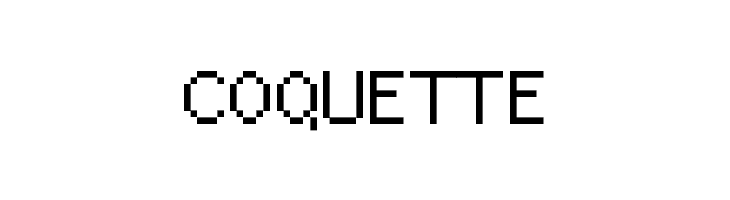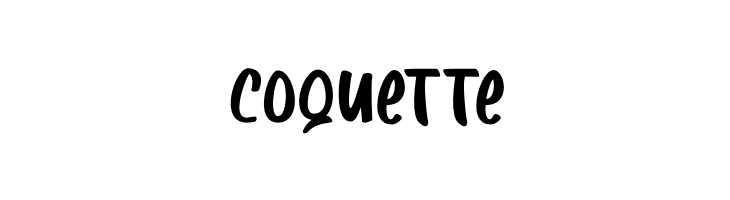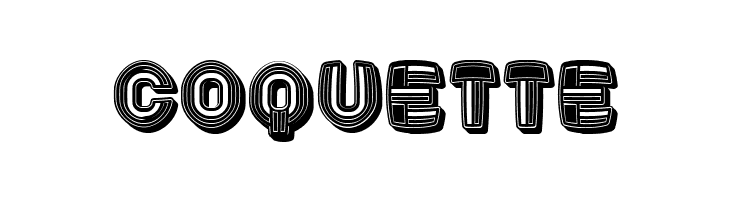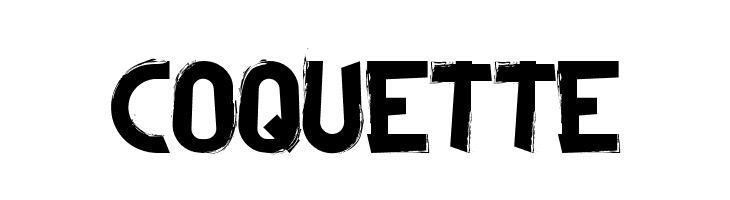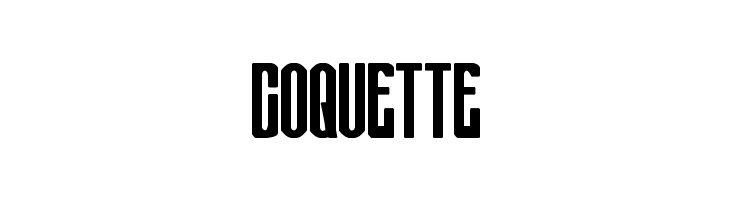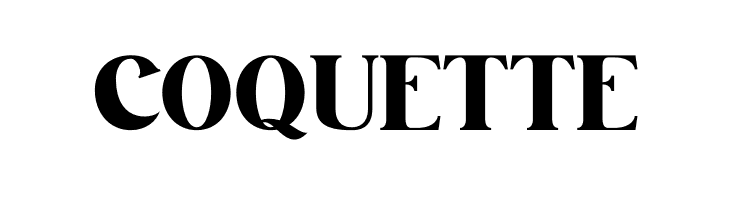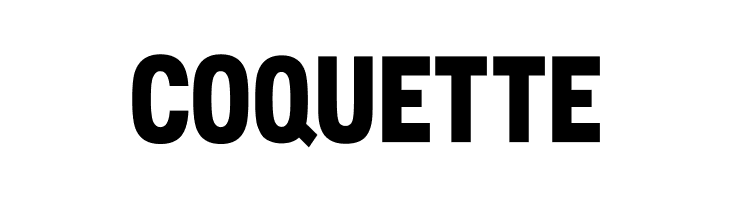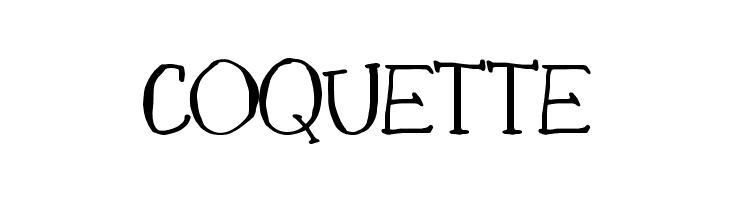
A bold, blocky font with strong, uniform characters.
A bold, geometric font with strong legibility and modern appeal.
A pixelated, monospaced font with a retro digital aesthetic.
A bold, textured brush font with a dynamic, hand-painted style.
A playful, hand-drawn font with a whimsical and casual style.
A bold, decorative font with a layered, three-dimensional design.
A bold, playful handwritten font with thick, rounded strokes.
A bold, playful handwritten font with a dynamic and energetic style.
A bold, high-contrast serif font with dramatic strokes and sharp serifs.
A bold, condensed, and geometric font ideal for impactful headlines.